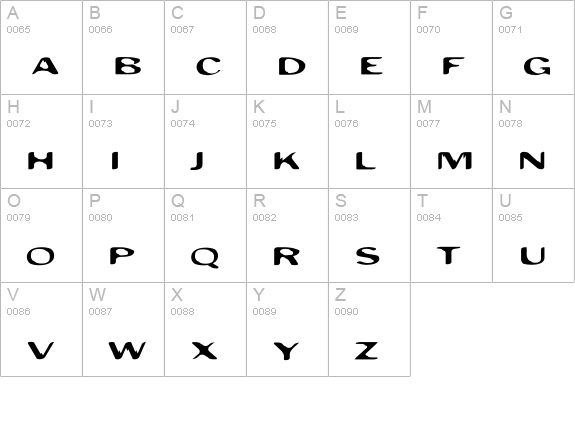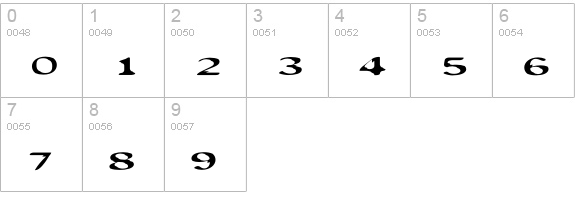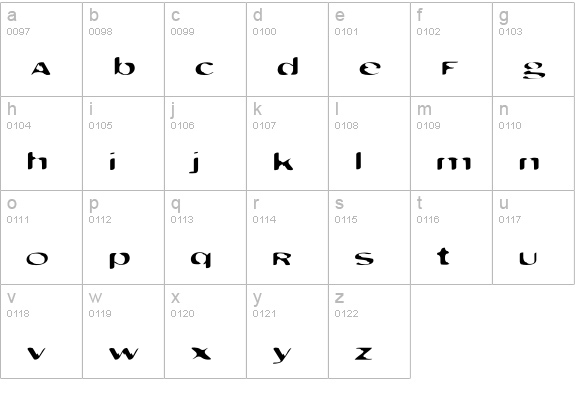
MonkeyCaughtStealing-Squat Font Details
MonkeyCaughtStealing-Squat font is a whimsical and playful typeface that exudes a sense of mischief and fun. With its quirky design and unique character shapes, this font is sure to catch the eye and add a touch of personality to any project. Whether you're working on a children's book, a party invitation, or a creative branding project, MonkeyCaughtStealing-Squat font will bring a sense of joy and creativity to your work. Best of all, MonkeyCaughtStealing-Squat font is available for free download at FontsMarket.com. This means you can easily access this charming font and use it in your designs without any cost. So why wait? Add a dash of playfulness to your projects with MonkeyCaughtStealing-Squat font today!